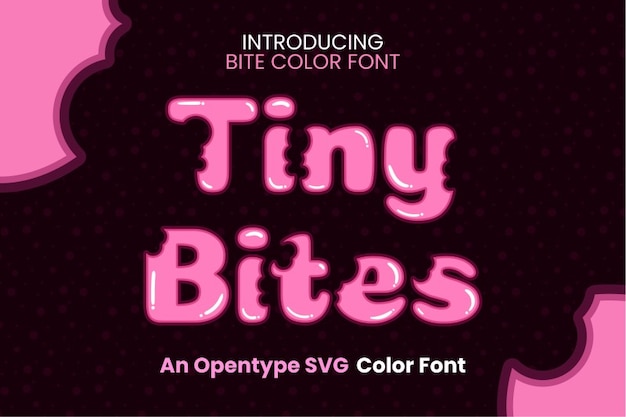
Tiny Bites
Tiny Bites Font
Tiny Bites is a sweet and squishy typeface that feels like bubblegum! Its soft, chubby letters look like they’ve been nibbled on—cute, fun, and totally snackable. Perfect for playful designs that want a pop of charm and a dash of deliciousness.